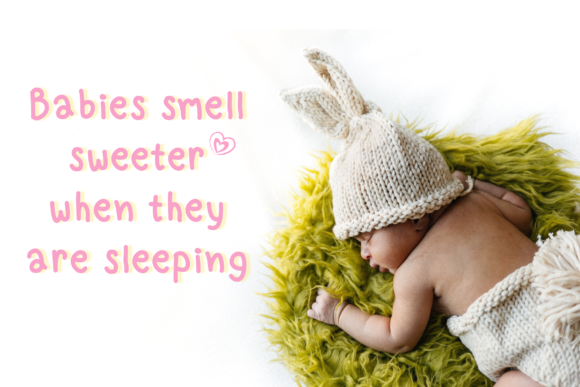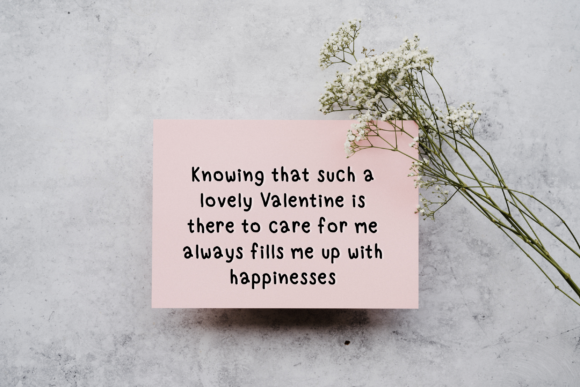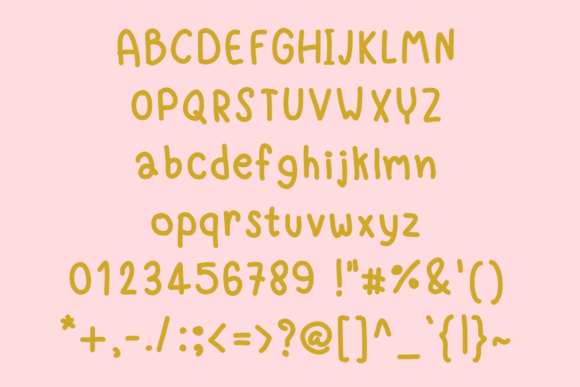
Introduction to Oatmeal Font
Have you ever been working on a creative project and suddenly, you’re stuck trying to find the perfect font to bring your idea to life? You scroll through countless options, but nothing seems to capture the essence of your vision. That’s where the Oatmeal Font comes in – a delightful, handwritten font that adds a touch of whimsy and charm to any design.
Whether you’re a seasoned designer or just starting out, the Oatmeal Font is an excellent resource to have in your toolkit. Its high-quality design makes it perfect for a wide range of applications, from children’s games and book covers to posters and brand names. And the best part? It’s available for a free download, making it an accessible and valuable addition to your design arsenal.
With its transparent background and cute, dainty style, the Oatmeal Font is sure to elevate your creative projects to the next level. So why not give it a try and see the magic it can bring to your designs?
Key Features of Oatmeal Font
- Features a unique, playful design aesthetic that can add a personal touch to various creative projects.
Honest Review: Oatmeal Font
I recently stumbled upon the Oatmeal Font while searching for a reliable design resource for my creative project. As a designer, I was excited to explore this free download and see if it met my expectations.
The Oatmeal Font is a high-quality, open-source font that offers a range of styles and weights. I was impressed by its versatility and the fact that it’s completely free to download.
- ✨ High-quality design: The font is clean, modern, and visually appealing.
- ✨ Versatile: The font comes in multiple styles and weights, making it suitable for various creative projects.
- ✨ Transparent background: The font’s transparent background makes it easy to use with different backgrounds and designs.
- ⚠️ Limited language support: The font may not support all languages, which could be a limitation for international projects.
- ⚠️ Limited customization options: While the font is highly customizable, there are some limitations when it comes to fine-tuning the design.
Overall, I’m impressed with the Oatmeal Font. While it may not be perfect, its high-quality design, versatility, and free download make it a valuable resource for any designer working on a creative project.
Tips for Getting the Most Out of Oatmeal Font
For optimal results, use Oatmeal Font on a high-quality design resource, such as a transparent background. This will allow the font to stand out and add a professional touch to your design. Experiment with different font sizes and colors to find the perfect combination for your creative project.
Oatmeal Font is a versatile design resource that can be used in a variety of creative projects, including blog posts, social media graphics, and presentations. Its high-quality, free download design makes it an excellent choice for designers and non-designers alike.
Yes, the Oatmeal Font is designed to work well on transparent backgrounds. However, it’s essential to ensure that the font is properly configured for transparency. You may need to adjust the font’s settings or use a design tool that supports transparent backgrounds.